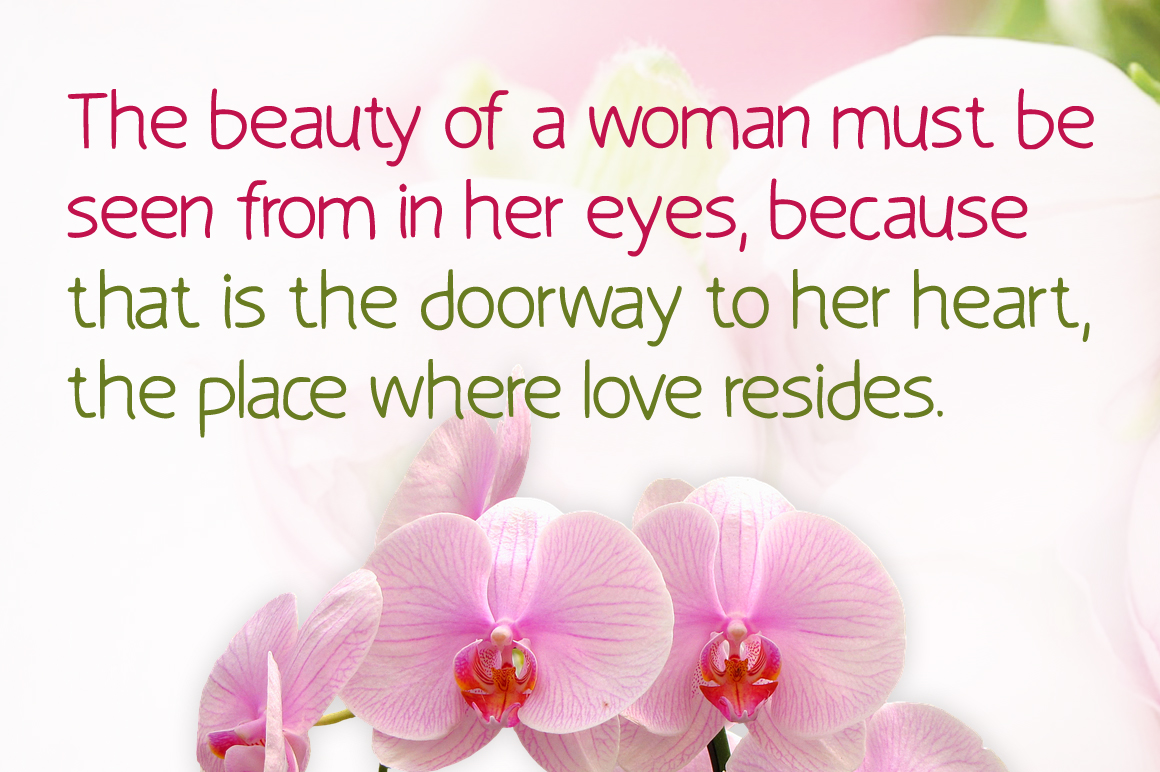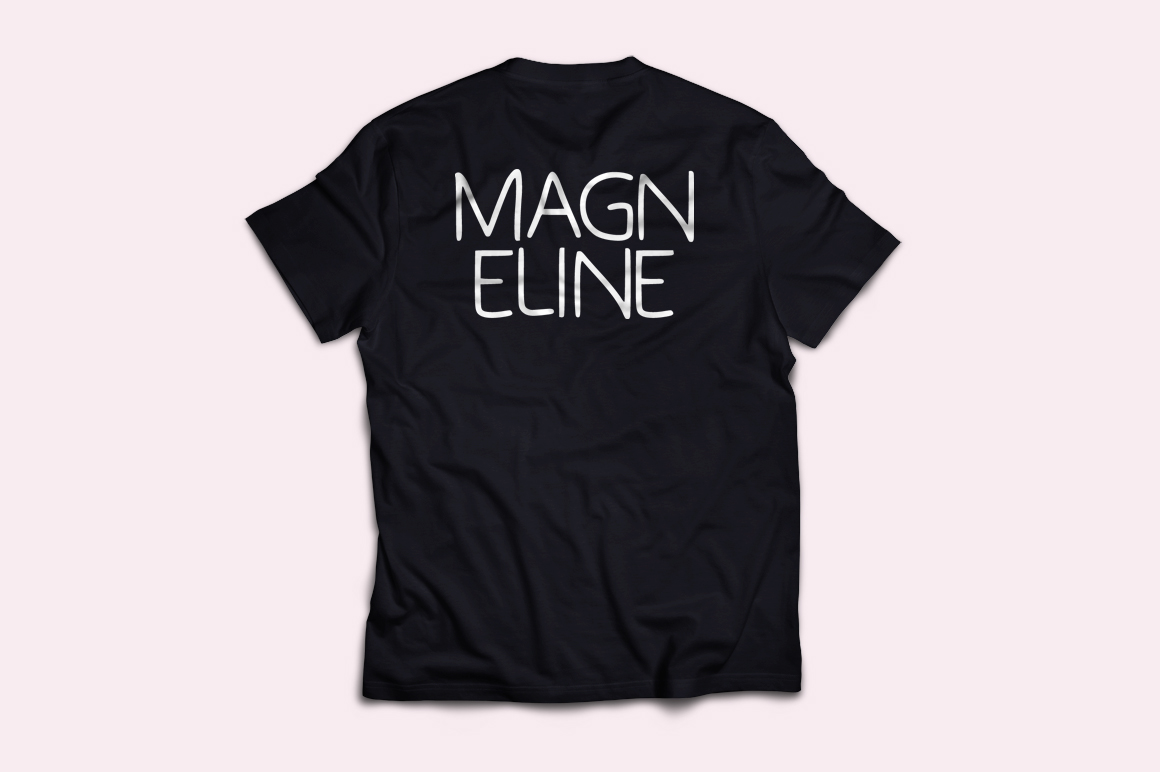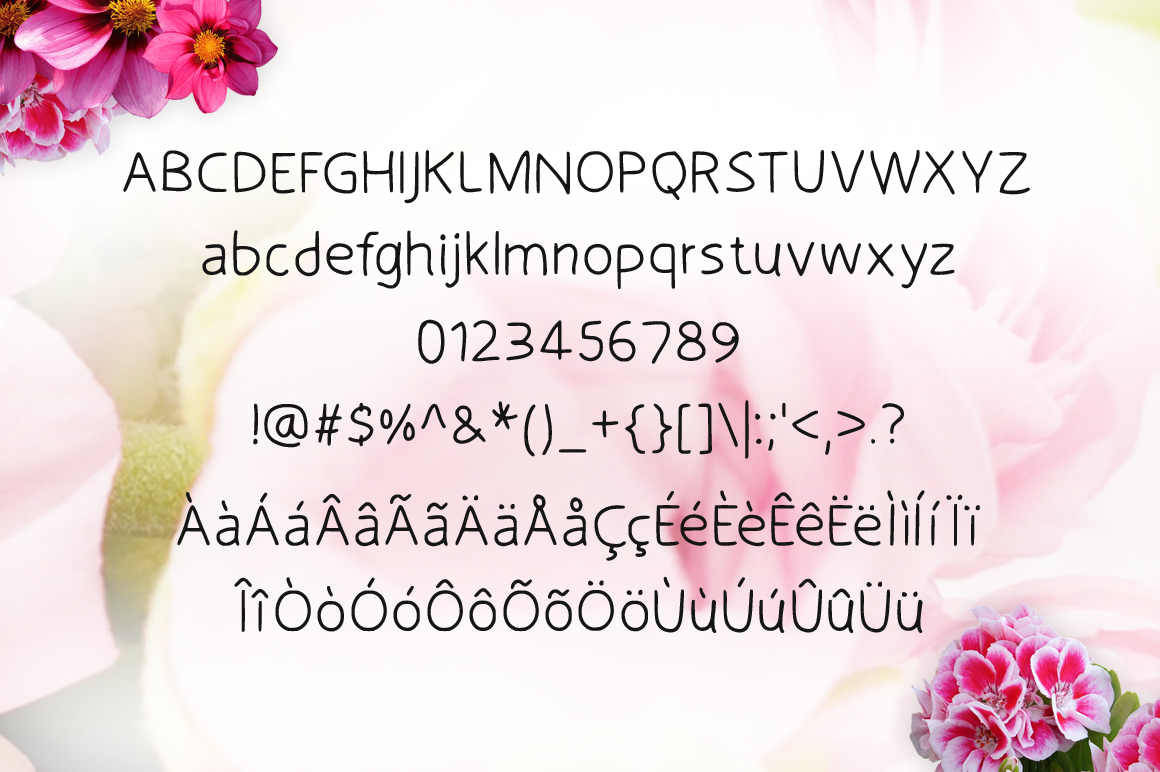
Introduction to Magneline Font
Magneline is a clean & modern handwritten font.
Key Features of Magneline Font
Why Choose Magneline Font?
Magneline Font offers exceptional quality and versatility, making it a valuable addition to your design toolkit. Whether you’re creating for personal projects or commercial use, Magneline Font delivers professional results.